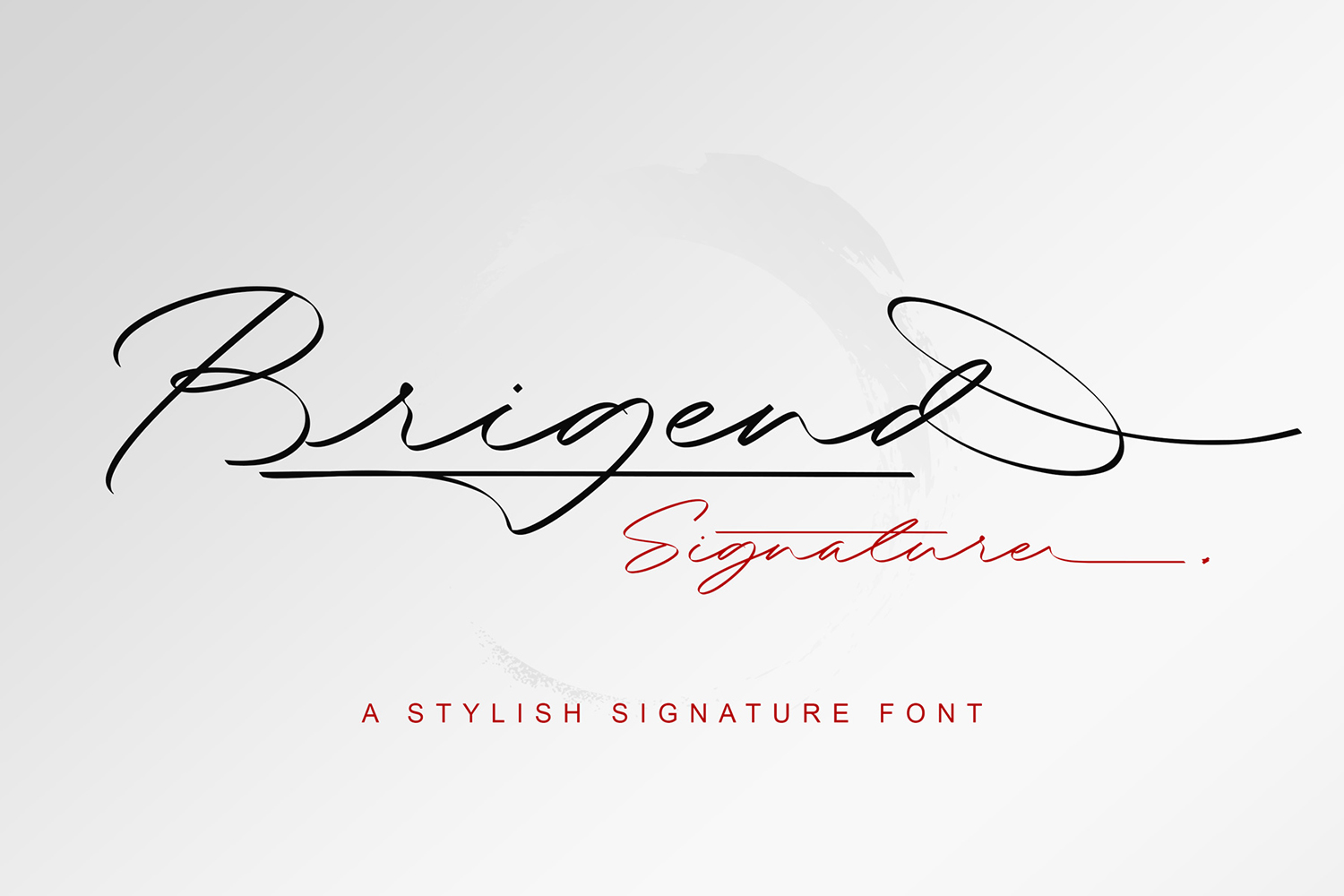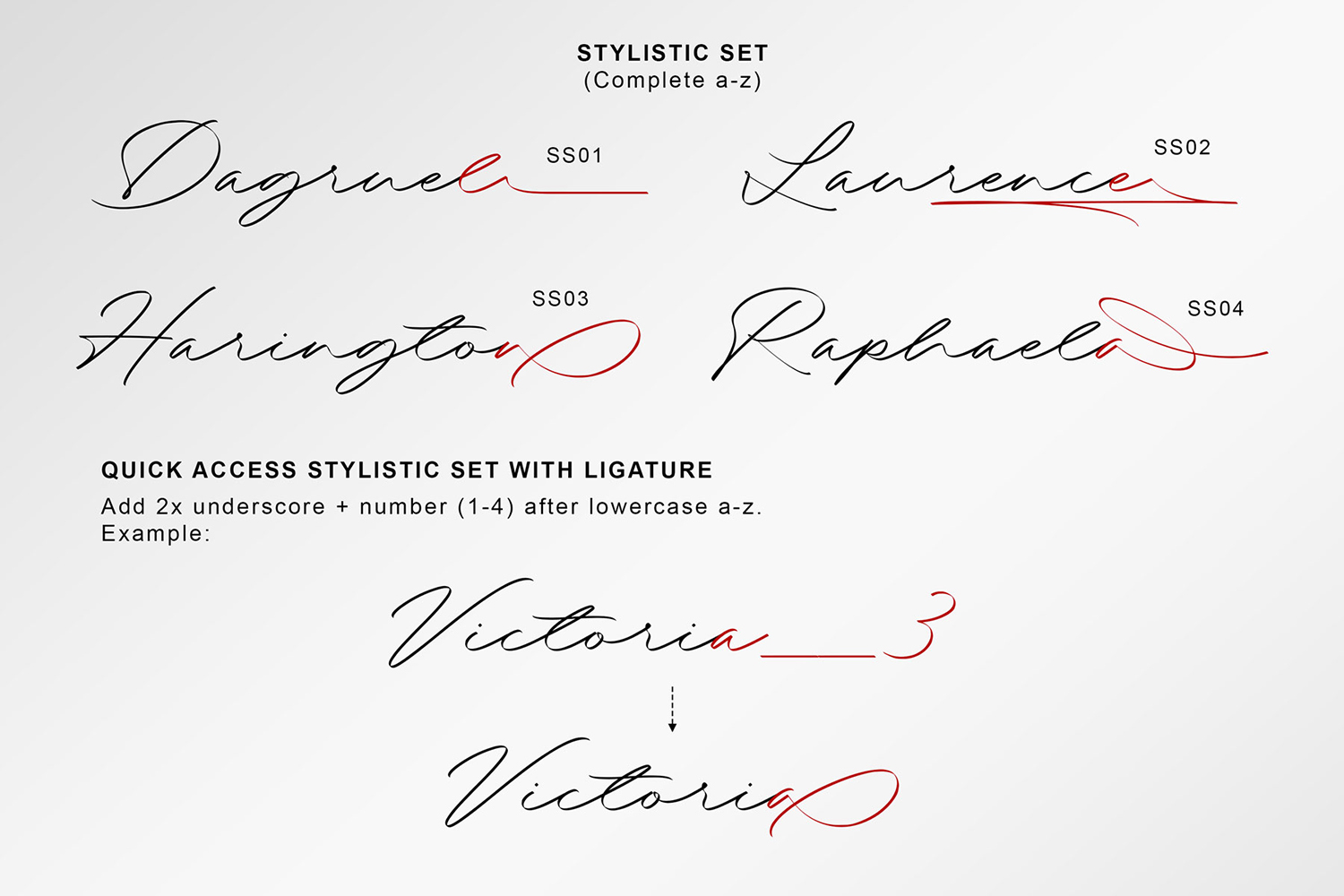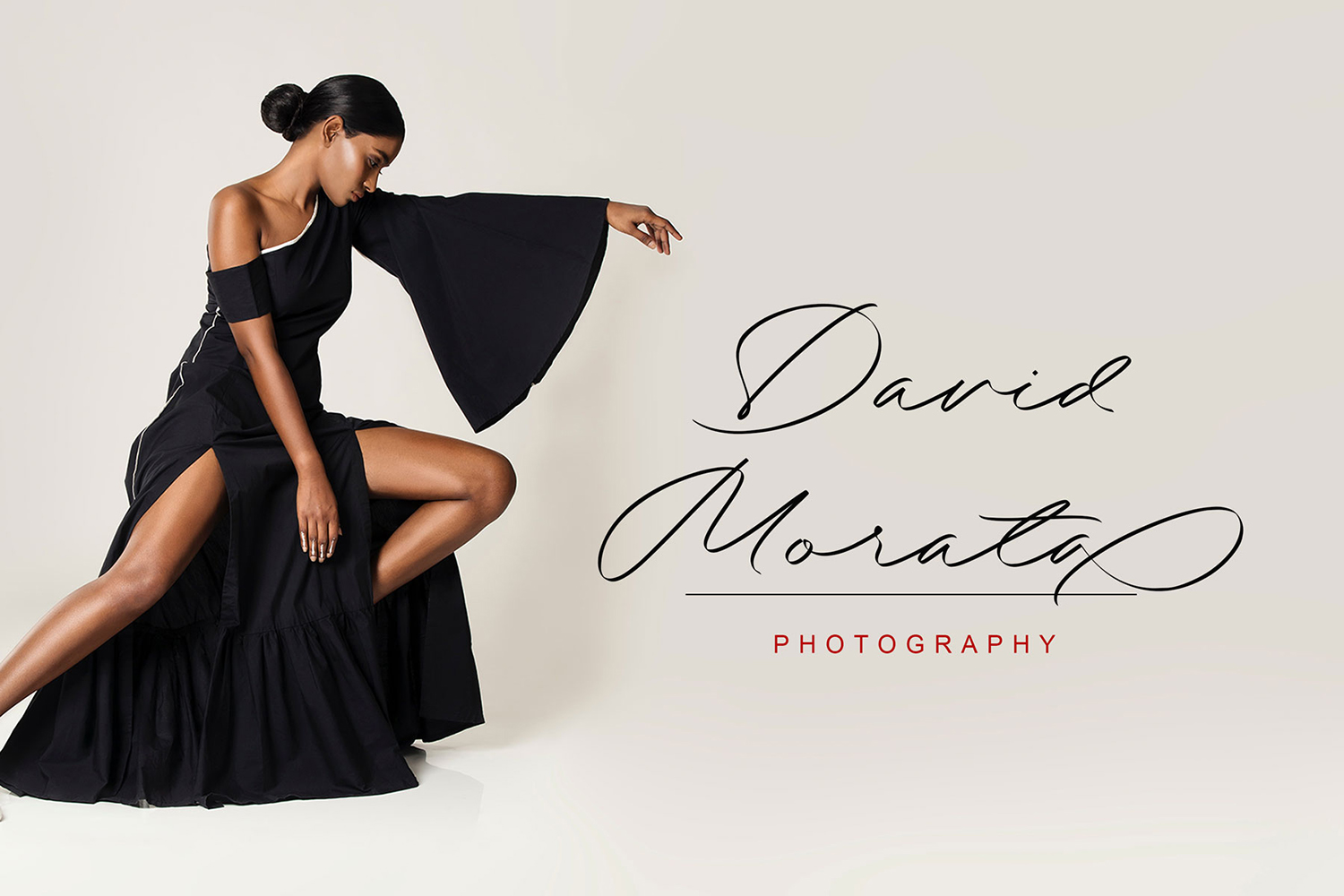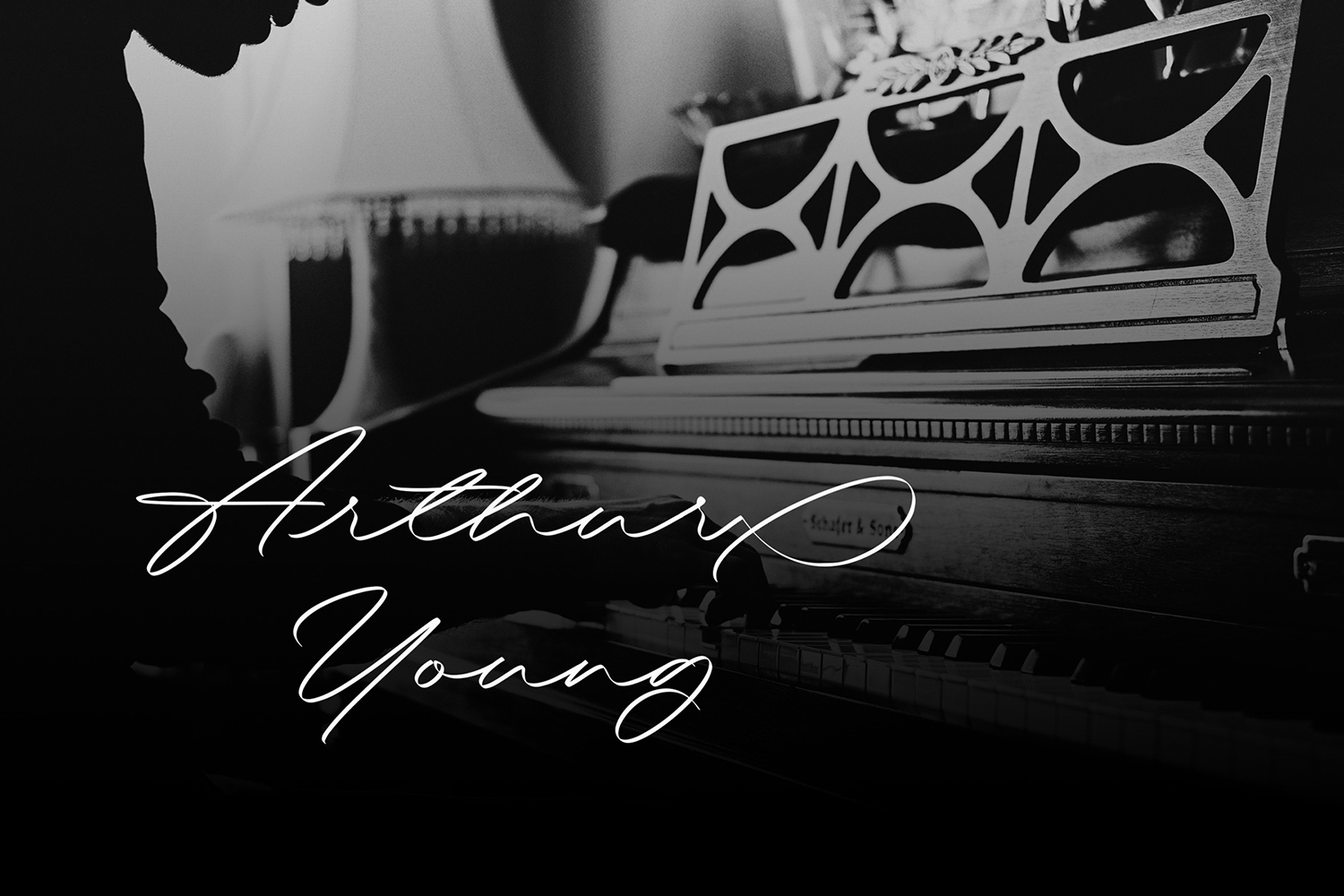
Brigend Free Font
Brigend Free Font is a stylish signature font. This free typeface was designed by a talented Lemonthe. If you like it don’t forget to check out the full version.